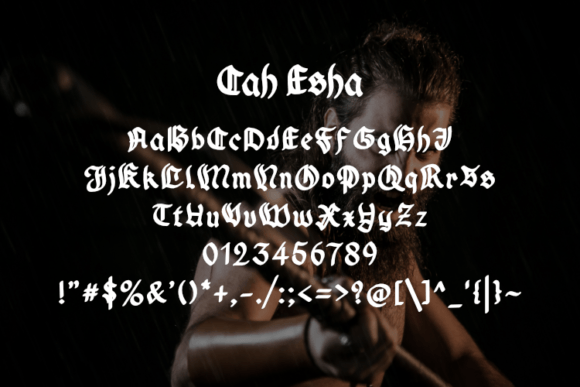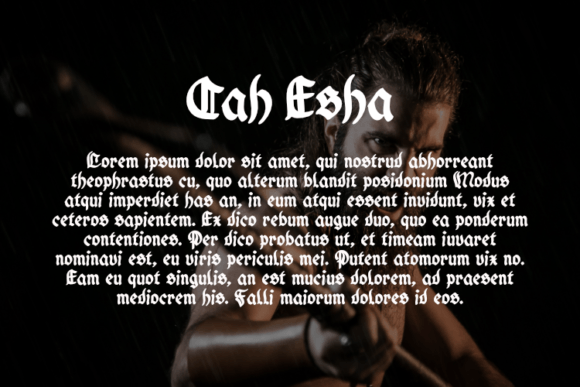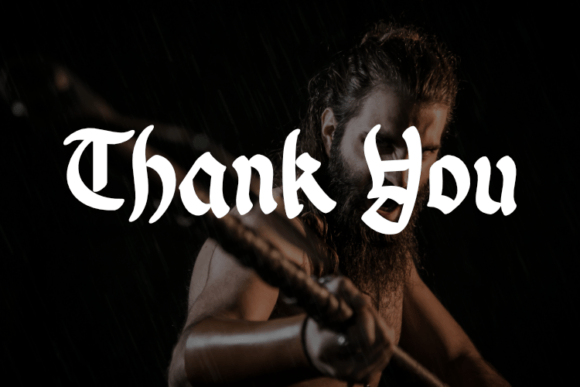
Unleash Timeless Elegance: Discover the Versatility of Cah Esha Font
In the realm of typography, few fonts manage to capture the essence of timeless elegance while offering versatility across various design applications. The Cah Esha font stands out as a beacon of sophistication, designed to bring your most ambitious creative visions to life. Whether you’re a fashion designer, product designer, or simply a creative enthusiast, Cah Esha offers the perfect blend of style and adaptability to elevate your work.
The Essence of Cah Esha Font
Cah Esha is more than just a font; it’s a tool for creative expression. Its design embodies a unique balance of elegance and playfulness, making it suitable for a wide range of projects. From the runways of fashion design to the meticulous world of product design, Cah Esha ensures that your message is conveyed with clarity and style. Its characters are crafted to add a touch of sophistication to any design, making it a valuable asset for designers aiming to make a statement.
Seamless Integration Across Design Platforms
Transforming Creative Explorations into Visual Journeys
The true power of Cah Esha lies in its ability to transform your creative explorations into captivating visual journeys. With Cah Esha, every design project becomes an opportunity to engage and inspire. Its elegant lines and sophisticated style make it perfect for projects that demand a high level of visual appeal, such as branding, advertising, fashion magazines, and product packaging.
Ideal for Designers Valuing Versatility and Sophistication
For designers who value versatility and sophistication, Cah Esha is an indispensable tool. It caters to the needs of professionals who understand the importance of typography in design and are constantly on the lookout for fonts that can meet the demands of diverse projects. Cah Esha’s unique style and adaptability make it an excellent choice for designers seeking to add a touch of elegance to their work.
Unleashing Creativity with Cah Esha
Creativity knows no bounds with the Cah Esha font. Its universal adaptability ensures that you can experiment with different design ideas without being limited by the font’s compatibility or style. Whether you’re creating a luxurious brand logo, an elegant wedding invitation, or a bold fashion statement, Cah Esha provides the perfect foundation for your creative expressions.
Why Choose Cah Esha?
- Timeless Elegance: Embody the sophistication and elegance of high-end typography in your designs.
- Versatility: Suitable for a wide array of design projects, from fashion and product design to digital media.
- Sophistication: Adds a touch of luxury and refinement to any design.
- Universal Adaptability: Perfect for designers looking for a font that can keep up with their creative explorations.
The Cah Esha font is a gateway to unlocking your full creative potential. With its timeless elegance, versatility, and compatibility across various design platforms, it’s the ideal choice for designers and creatives looking to add a touch of sophistication to their work. Whether you’re aiming to make a bold statement or create a lasting impression, Cah Esha is your partner in bringing your wildest creative ideas to life. Embrace the elegance, versatility, and creative freedom that Cah Esha offers, and transform your designs into captivating visual journeys.